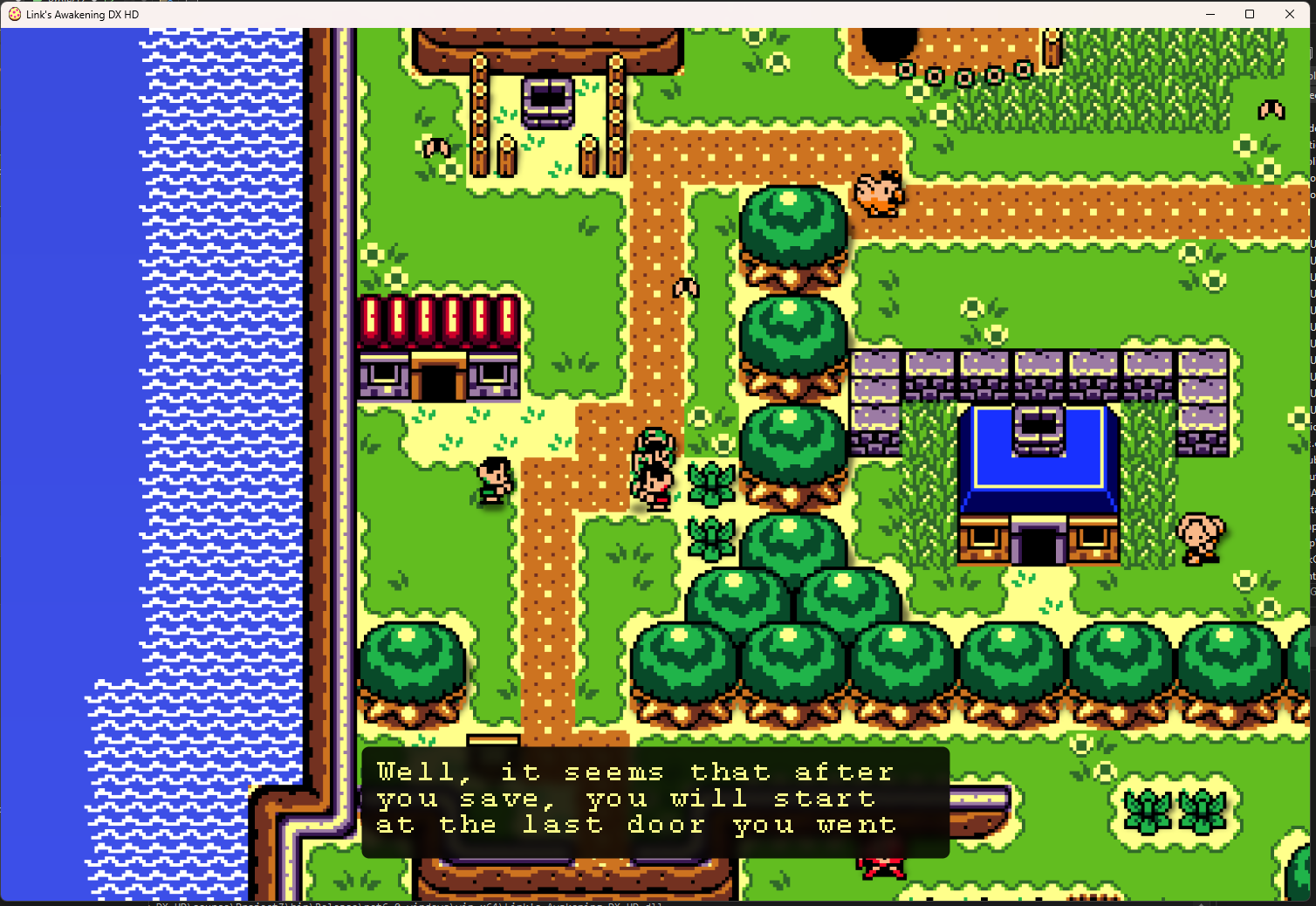
I think this is overall really well done, but my eyes really don't like the italicized font. Is there any way to change it? I looked for a font resource but I'm coming up empty.
I recompiled using their unused body font. It's much more readable.